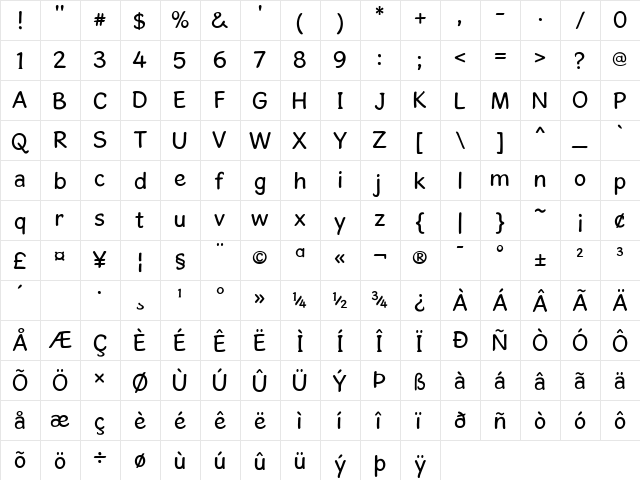
GosmickSans Regular
Design Context for GosmickSans Typeface
GosmickSans takes a measured approach to typography — its balanced proportions and neutral character make it a reliable workhorse for both digital and print work.